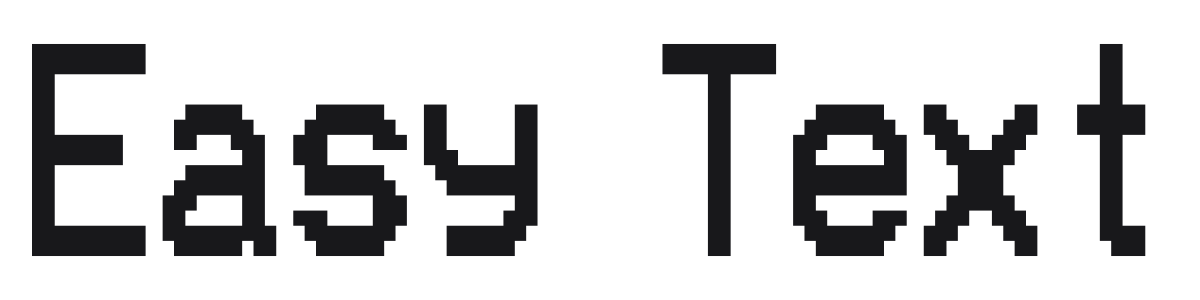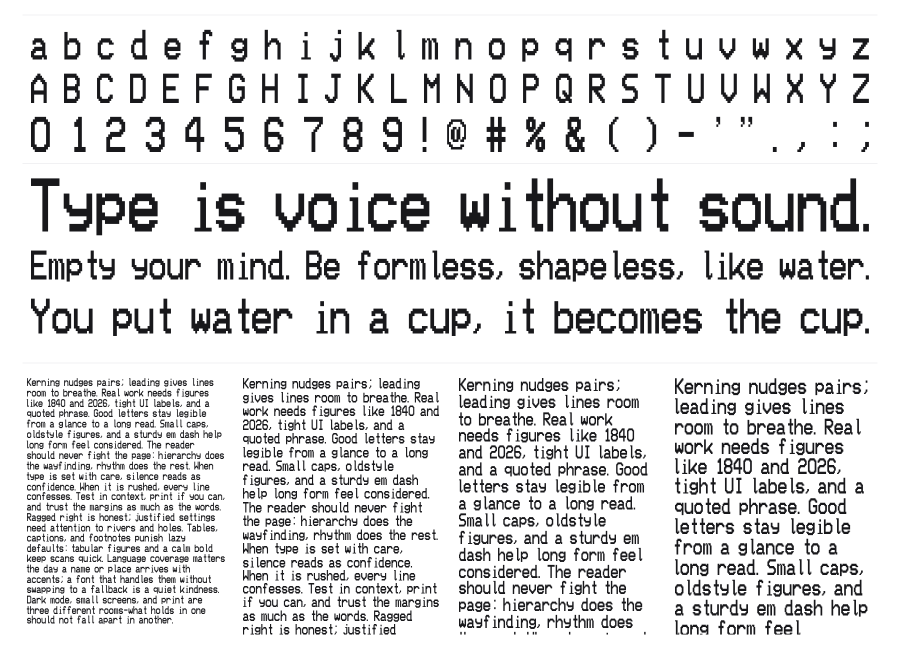
Easy Text
by James Holmes
Easy Text is a bitmap-style font inspired by Emergency Alert System text displays and early CRT broadcast graphics. Built on a coarse pixel grid, it carries that unmistakable lo-fi digital look of 1980s and 90s television interfaces. It works well anywhere a retro digital or broadcast aesthetic is needed.